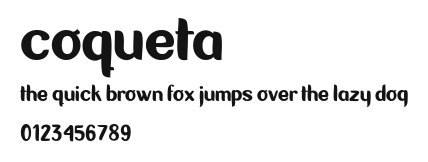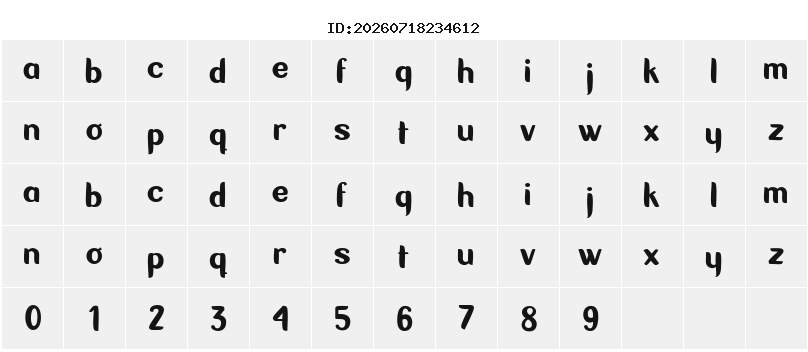
Coqueta Preview
• Font Name: Coqueta
• Full Font Name: Coqueta Regular
• PostScript Name: Coqueta
About Coqueta.ttf
Coqueta.ttf is a modern, elegant sans-serif font designed for ultimate readability and visual harmony. Perfect for branding, headlines, web design, and print materials.